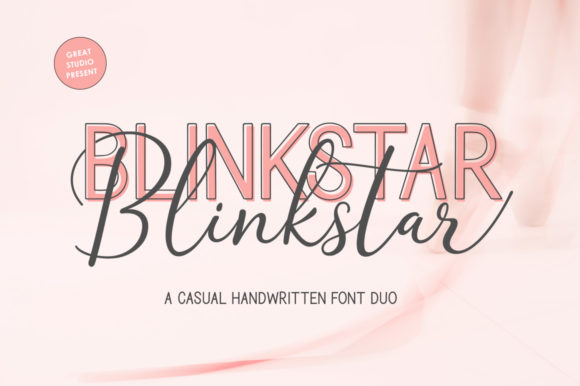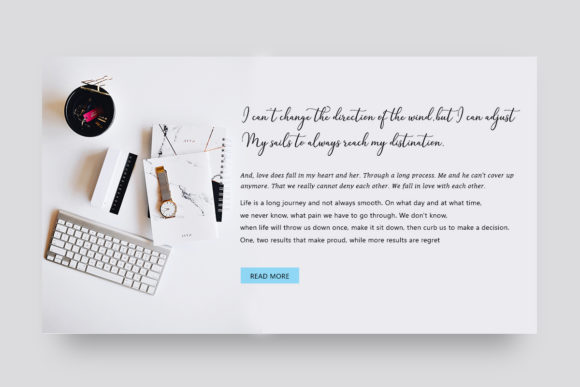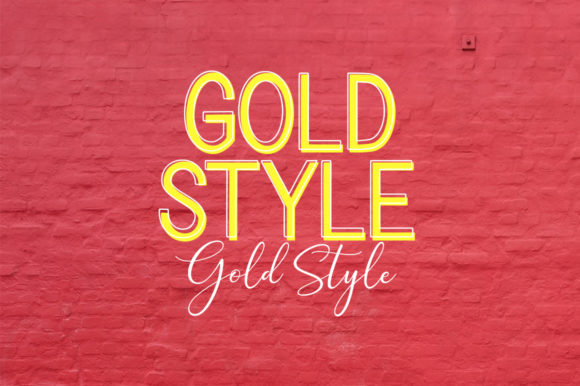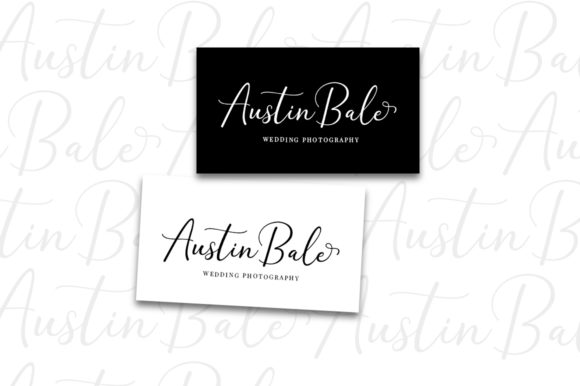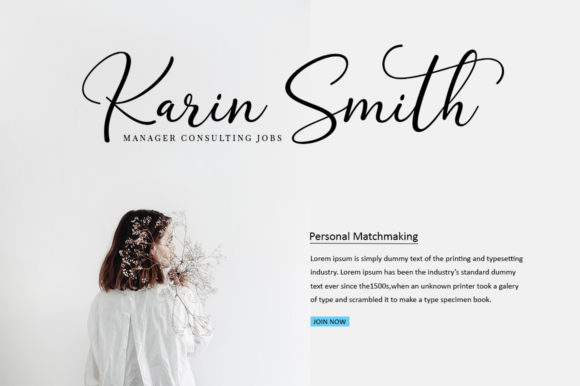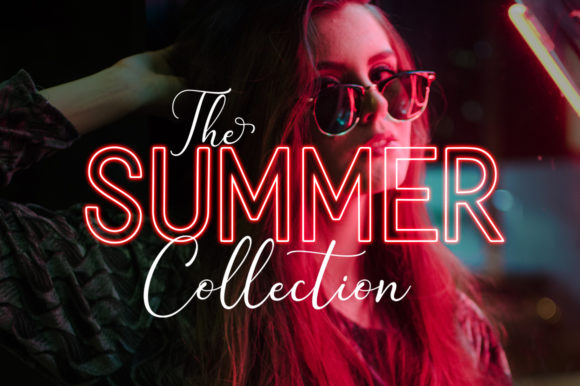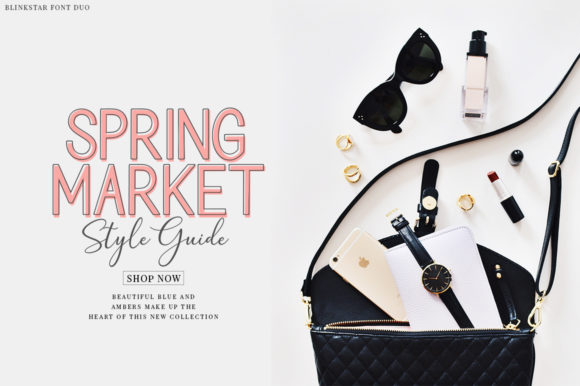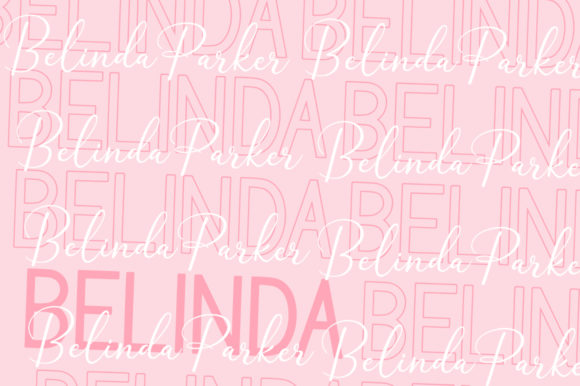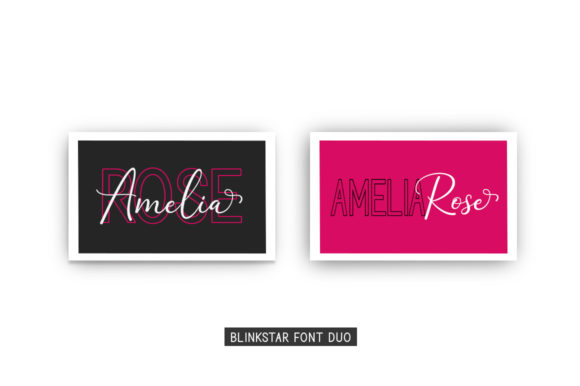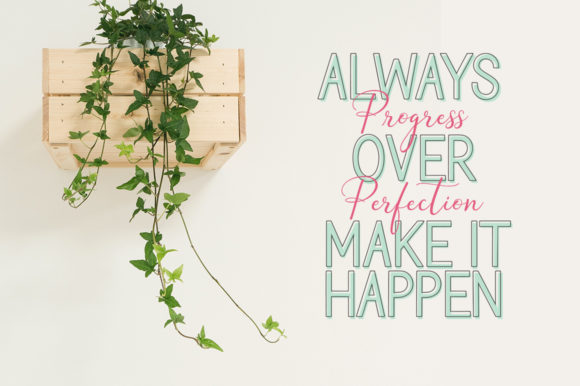
Blinkstar Duo Font
About Blinkstar Duo Font
The Blinkstar is a playful script duo. It contains many alternative characters to choose from as well as ligatures that look natural to add to a authentic look to your designs. A collection of strange and initial swash tips is also included to add finishing touches or to fill the space in your designs.
Make custom lettering a dream thanks to all the extra decorative choices you can enter for beautiful and unique customization’s – swashes, endings, alternative letters and ligatures all make it the prettiest little thing since tutus and tiaras.
It consists of a super fine and casual signature script and a complete and clean set of sans serif letters which work harmoniously together. Layer them with different colors and turbidity to get a million different views.